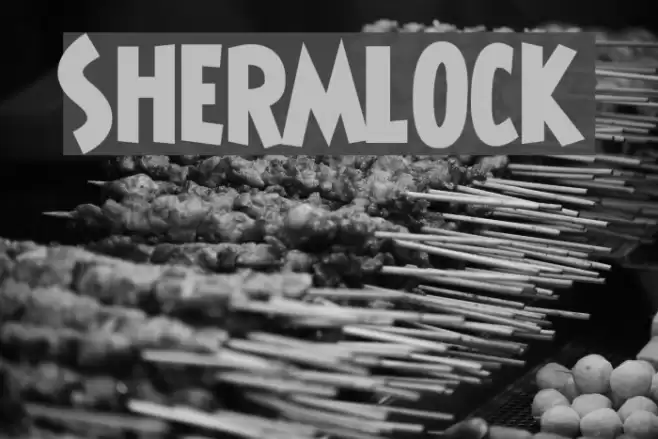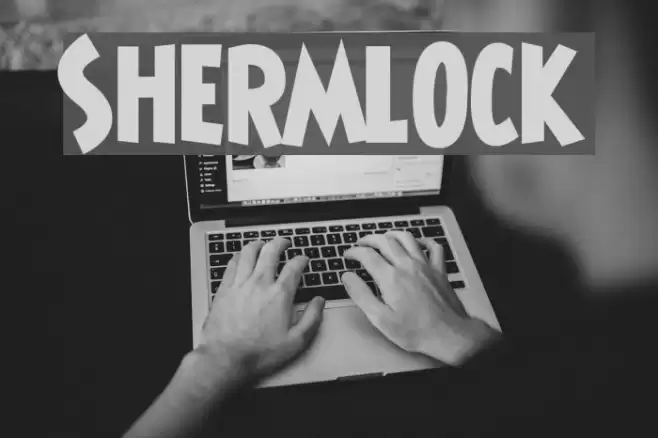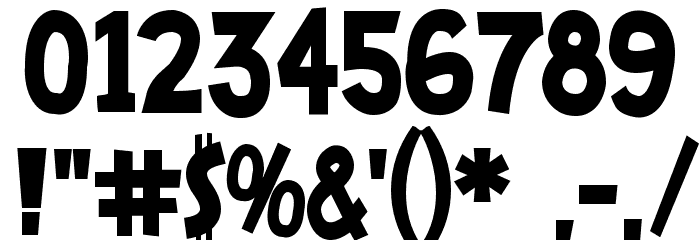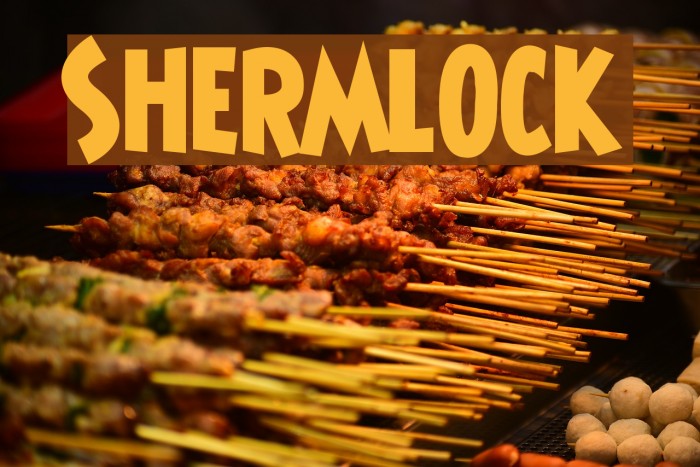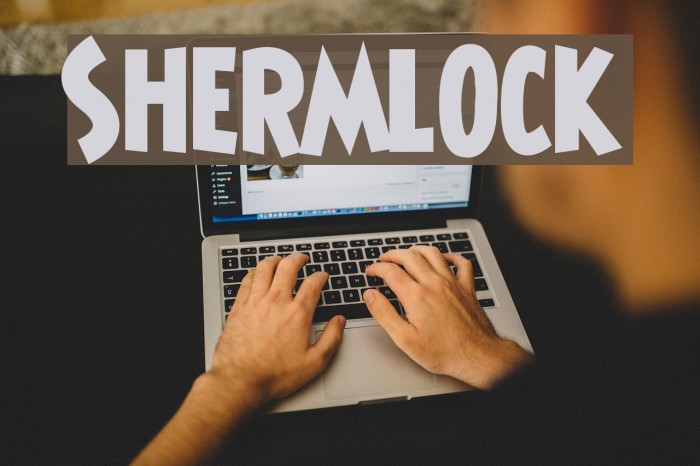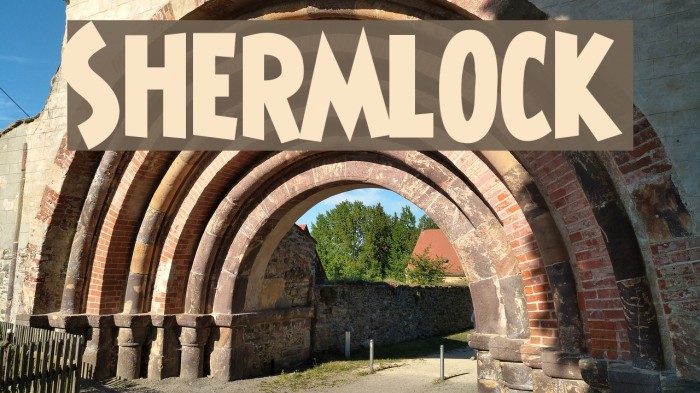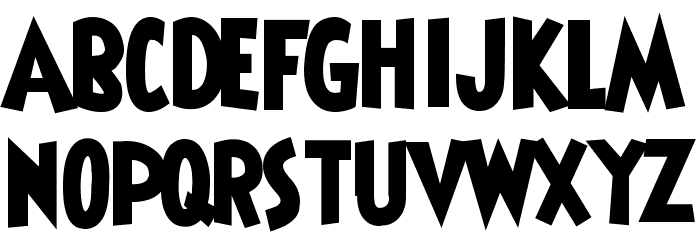
Shermlock Font
Shermlock Description
This font features bold, angular characters with a playful and dynamic appearance. The uppercase letters are particularly striking, with exaggerated angles and a sense of movement that suggests energy and excitement. The lowercase letters maintain this boldness, offering a cohesive look across the alphabet. Numbers and special characters are equally bold, ensuring consistency throughout. The overall design is reminiscent of comic book styles, making it ideal for projects that require a fun and engaging typeface.
A bold, angular font with a playful, comic book style from Cartoon fonts.
- Proposed Projects: Ideal for comic books, children's books, playful branding, and eye-catching posters.
- Overall Style: Playful, Comic